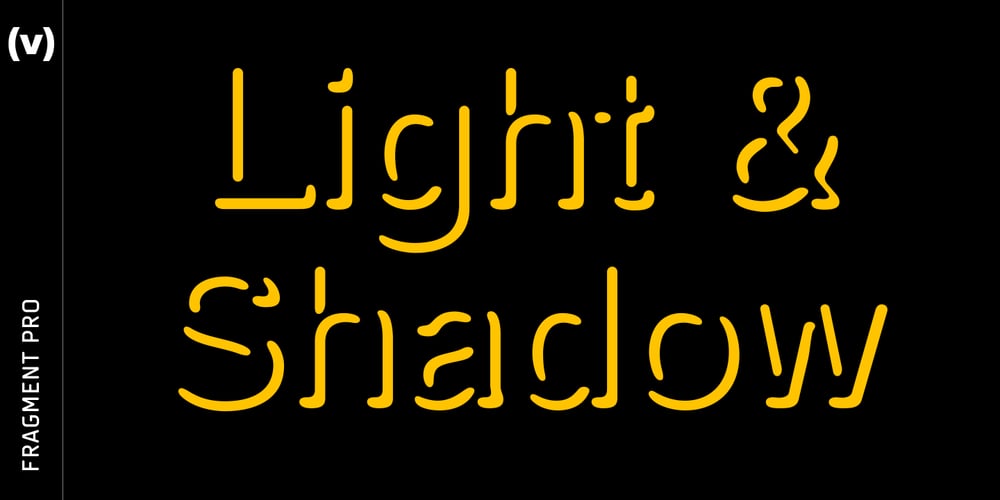
Fragment Pro Font Family was designed by Vít Šmejkal and published by (v) design. Fragment Pro contains 1 styles and family package options. Fragment Pro is a part of a larger OpenType font family (see also Fragment Pro Inline). It is an elegant, soft and decorative typeface built on classical proportions. Its outlines have been carefuly crafted with a high attention to detail, so it could be used even at very large sizes. Fragment Pro is derived from the separately sold layered Fragment Pro Inline, however it has been significantly optimized for standalone use. Fragment has been conceived to be used as a display typeface in publications, titles, logotypes etc., but it is surprisingly legible even in smaller print sizes. Thanks to its strictly onefold oulines, Fragment can be also used as a stencil typeface. Fragment supports many OpenType features and offers great multilingual support for most of the Latin-based languages. Feel free to download the detailed PDF Specimen.